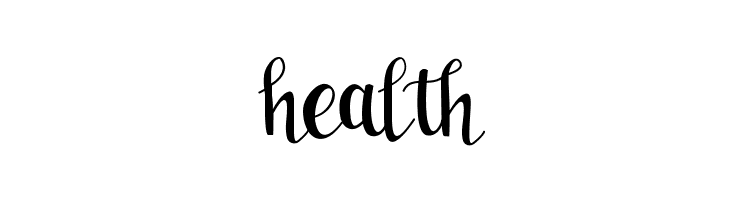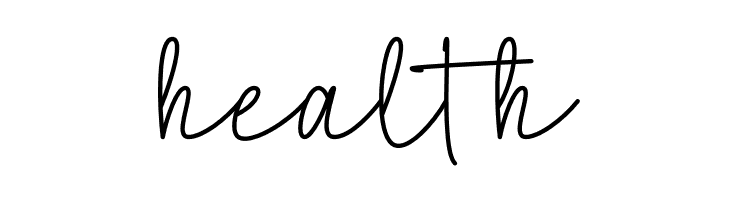
A playful and elegant script font with a handwritten feel.
An elegant script font with flowing, cursive strokes and refined curves.
A festive font with Christmas-themed decorations on bold, rounded letters.
A festive, decorative font with Christmas-themed embellishments on uppercase letters.
A bold, whimsical script font with elegant swashes and loops.
A bold, medieval-inspired font with sharp, angular lines and decorative flourishes.
A bold, flowing script font with dynamic curves and elegant flourishes.
A playful, handwritten script with a whimsical and informal style.
A playful handwritten font with fluid, flowing letterforms and a whimsical style.
An elegant cursive font with graceful curves and delicate serifs.